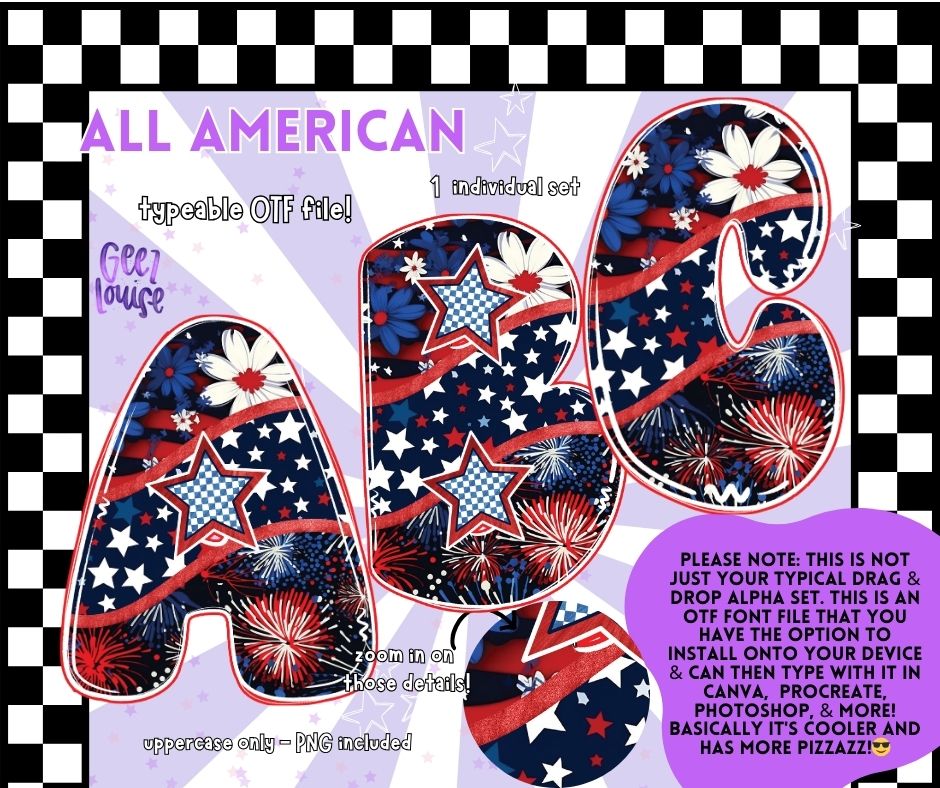
All American Bubble - TYPEABLE OTF Font - Alpha Set - Digital Download- PNG
All American bubble OTF Alpha – Typeable Font & PNG Files 🇺🇸
✔ Patriotic red, white, and blue leopard print – A bold and trendy look
✔ High-quality details – Crisp, clear, and eye-catching
🔥 Add some patriotic flair to your designs with the American bubble Alpha! 🔥